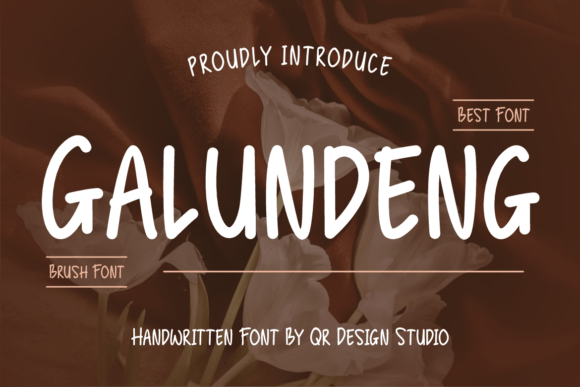
Introducing Galundeng Font, the ultimate typographic expression of bold authenticity and visual impact. A creation of qrdesignstd, this script font family is not just a collection of letters; it's an arsenal of design possibilities, ready to transform your creative visions into captivating realities.
Step into a world where your words dance with an undeniable presence, commanding attention with every curve and stroke. Galundeng Font's distinctive style effortlessly elevates your designs, adding a touch of intrigue and personality that sets them apart from the ordinary.
With its bold and confident strokes, Galundeng Font is the perfect choice for creating logos that linger in the memory, packaging designs that demand a second look, and social media posts that ignite engagement. Its versatility shines through in branding projects, where it effortlessly adapts to convey the unique essence of your brand, leaving a lasting impression on your audience.
Harness the power of Galundeng Font to craft eye-catching headlines that grab attention like a magnet, pulling readers into your content with irresistible allure. Watch as your website visitors are captivated by the dynamic energy it brings to your landing pages, urging them to explore further and discover the treasures you have to offer.
But Galundeng Font's prowess extends far beyond the digital realm. Unleash its creative potential in print designs, where its bold strokes and authentic charm add a touch of sophistication to brochures, posters, and flyers. Let your imagination run wild as you create invitations that exude elegance, menus that tantalize the taste buds, and business cards that leave a lasting impression, ensuring that your brand is never forgotten.
With Galundeng Font at your disposal, the possibilities are endless. Its ability to thrive in a wide range of contexts makes it a must-have for any designer's toolkit. Whether you're creating captivating social media graphics, stunning presentations, or simply adding a touch of personality to your personal projects, Galundeng Font is your trusted companion, ready to elevate your designs to new heights.
Don't settle for ordinary fonts that blend into the background. Embrace the bold authenticity of Galundeng Font and watch as your designs transform into works of art that captivate and inspire. Download Galundeng Font today and unlock the door to a world of creative possibilities, where your imagination knows no bounds.